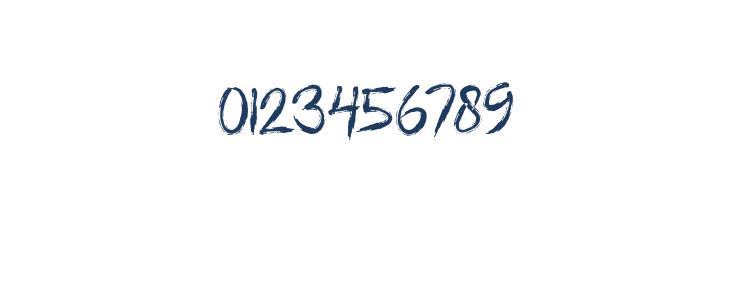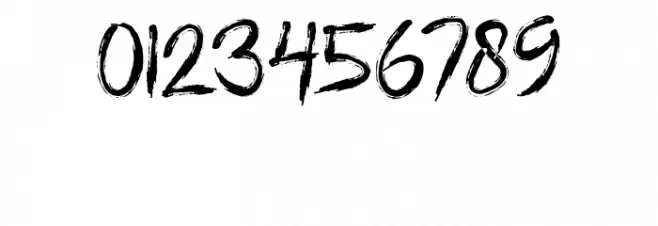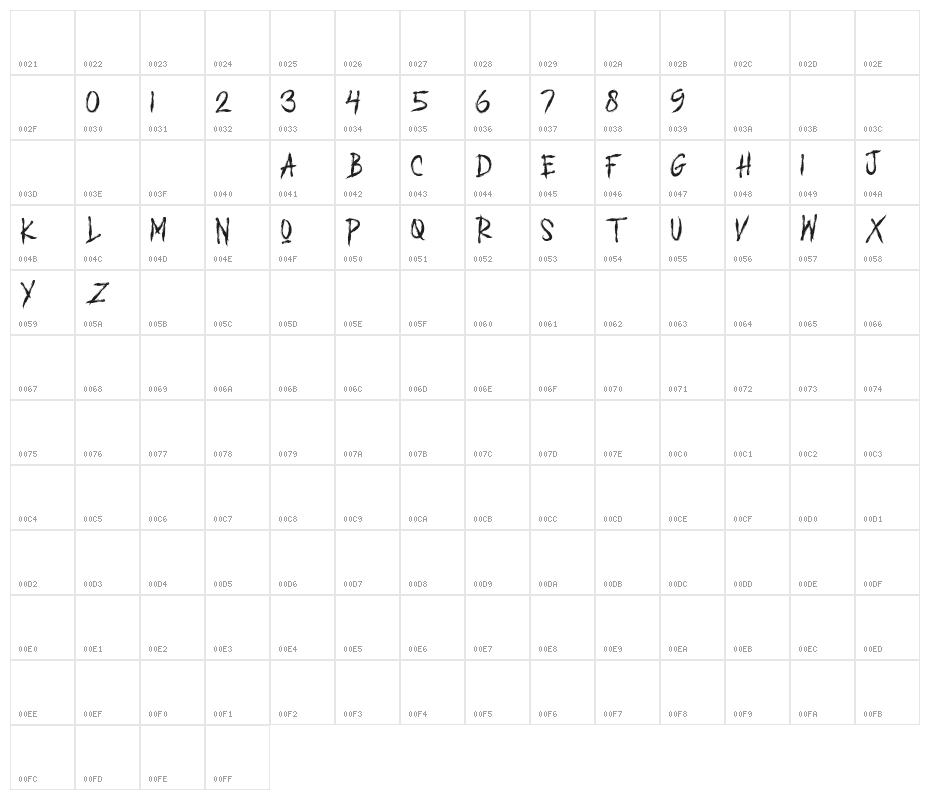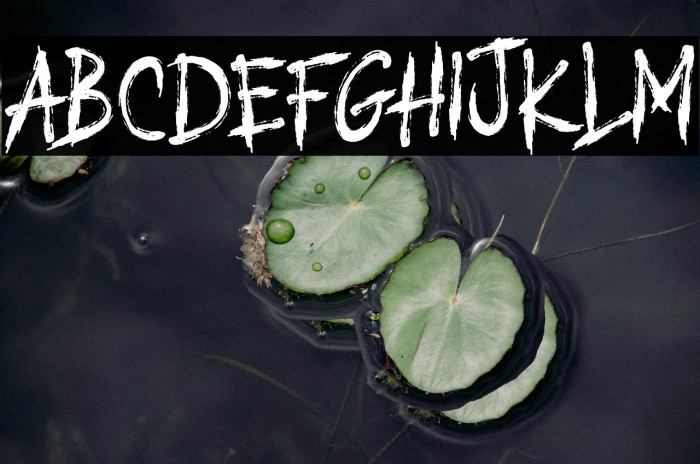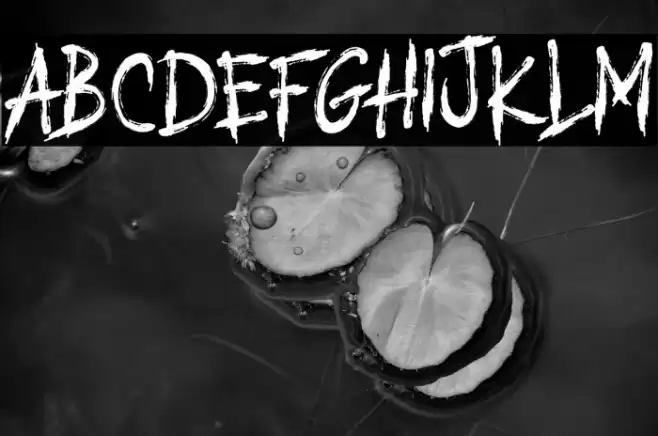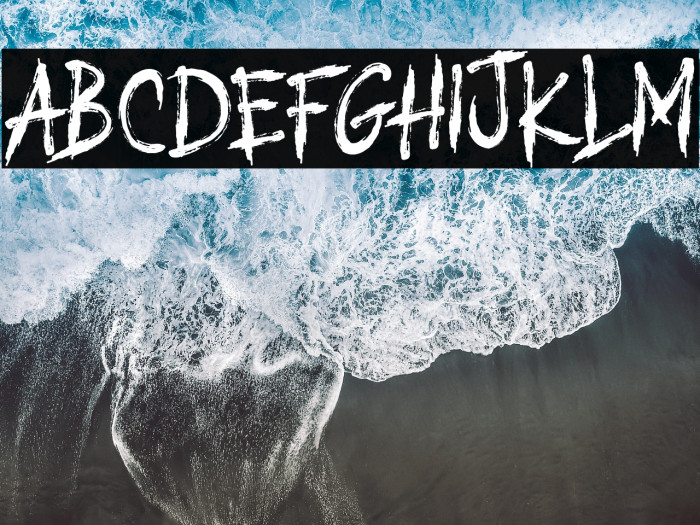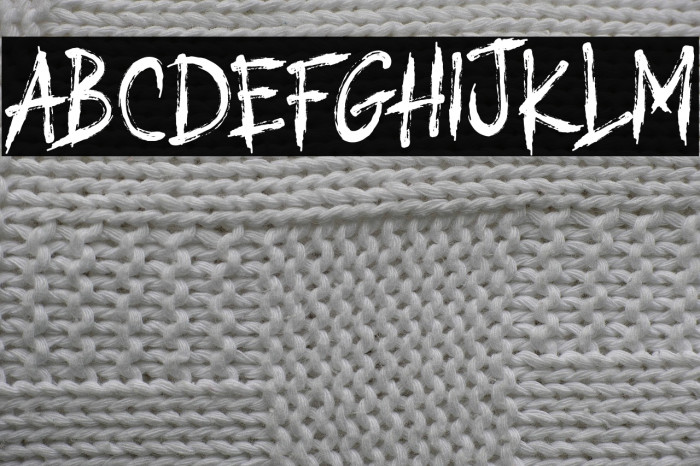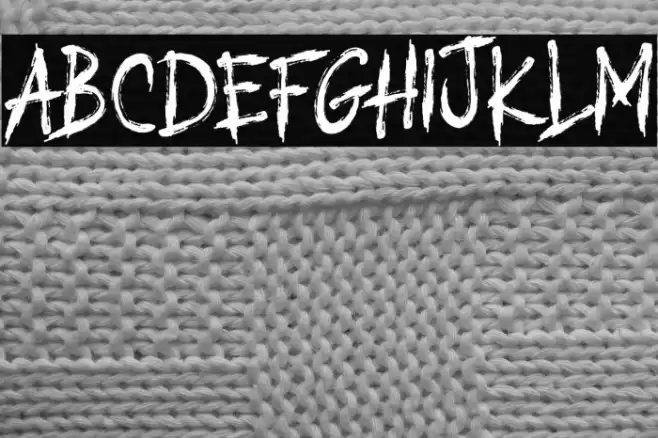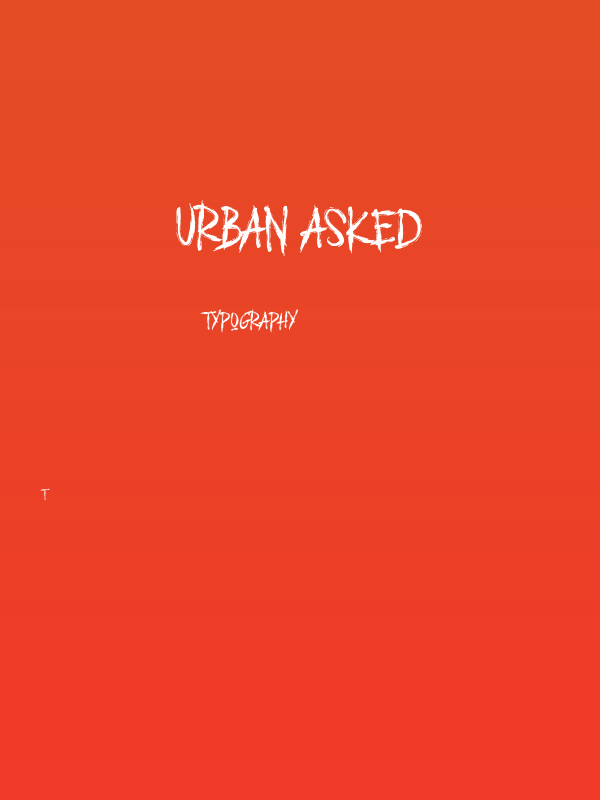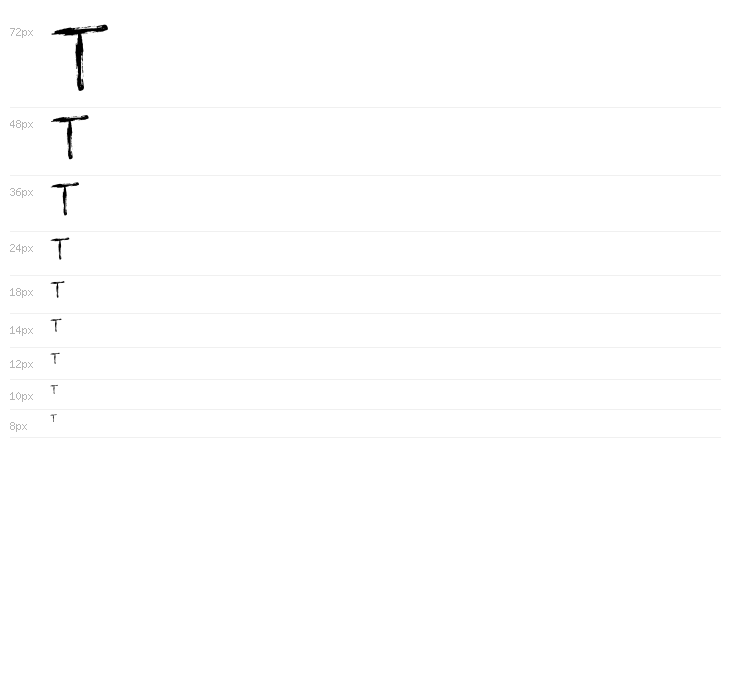
URBAN ASKED Font
URBAN ASKED Description
This font features a bold, edgy style with a hand-drawn appearance, characterized by its rough, brush-like strokes. The uppercase letters are dynamic and energetic, conveying a sense of urgency and movement. The numbers maintain the same rugged aesthetic, ensuring consistency across all characters. This font's unique, distressed look makes it ideal for projects that require a raw, urban feel. Its distinctive style is perfect for creating eye-catching headlines or logos that demand attention.
| Overall Style | Urban, Edgy, Raw |
| Proposed Projects | Ideal for streetwear branding, music album covers, graffiti art projects, and urban-themed posters. |